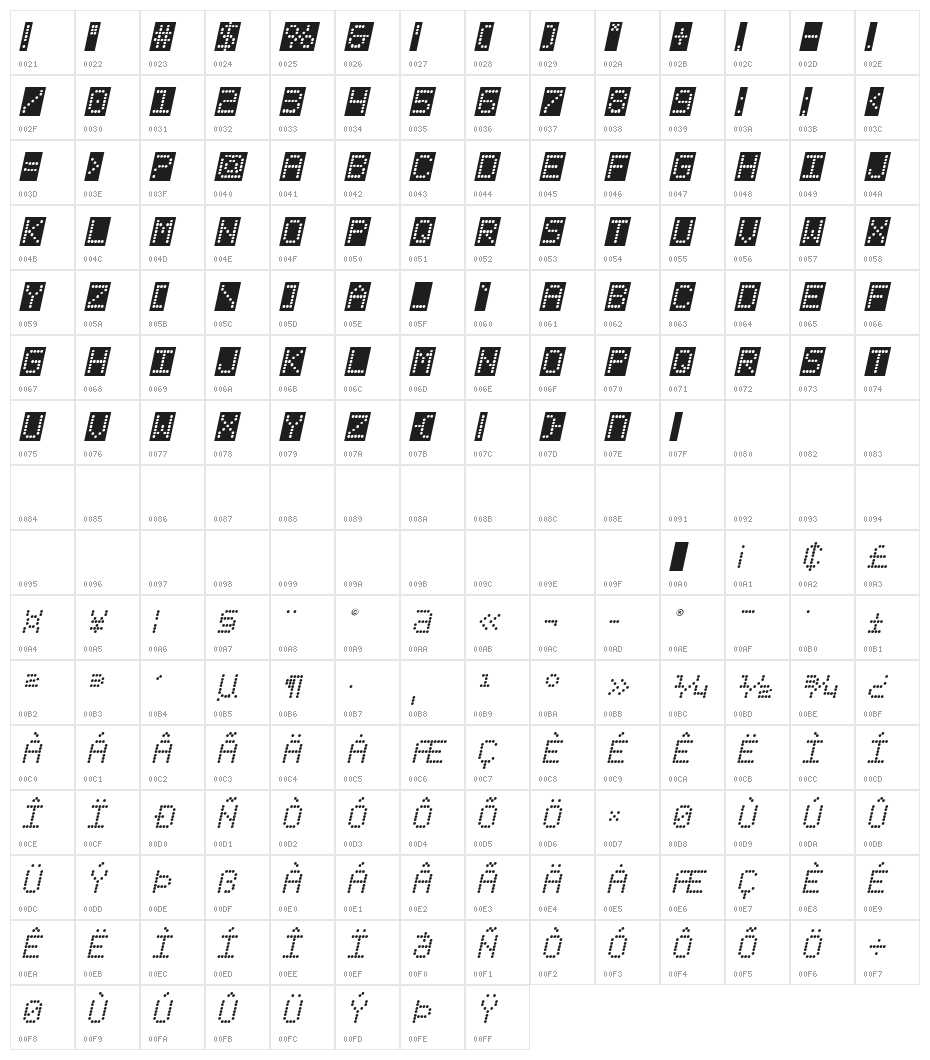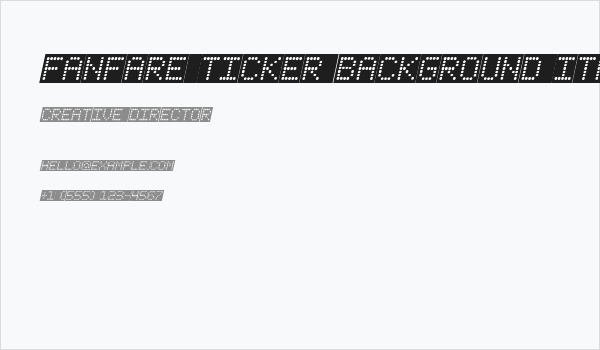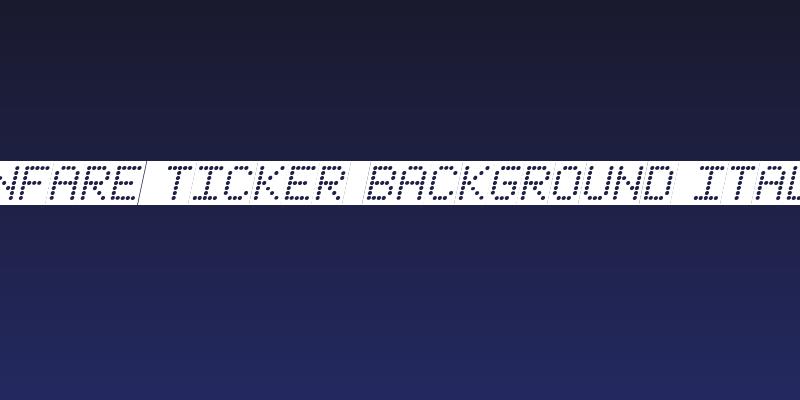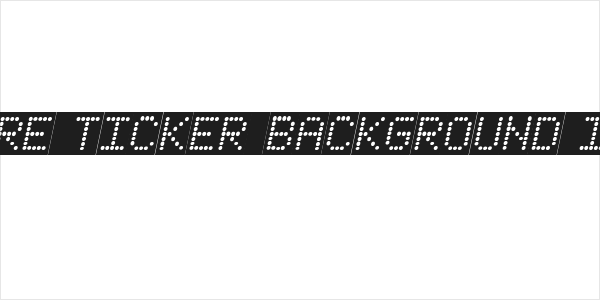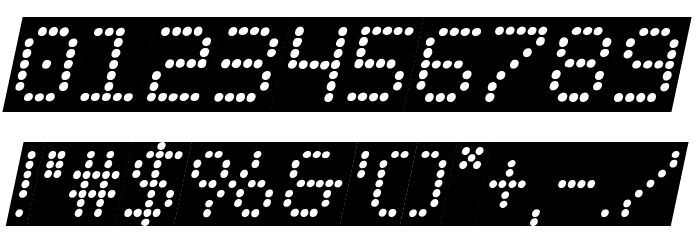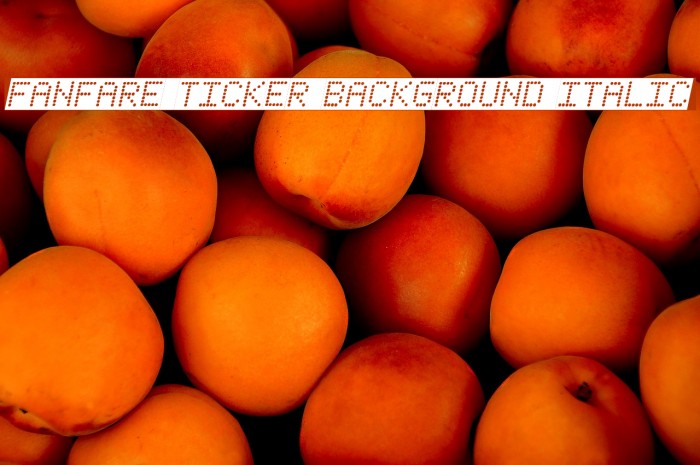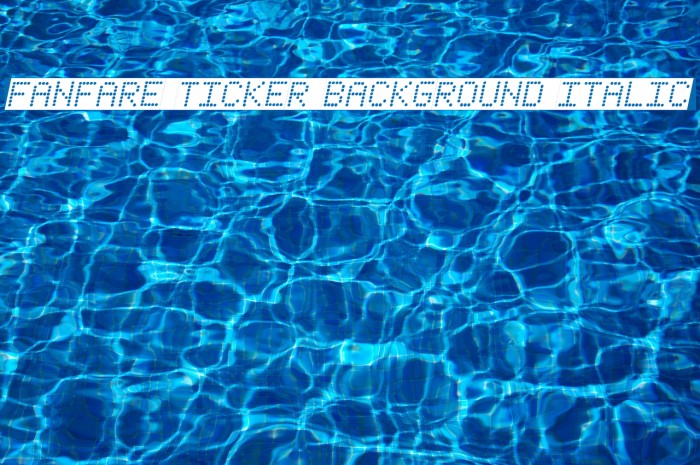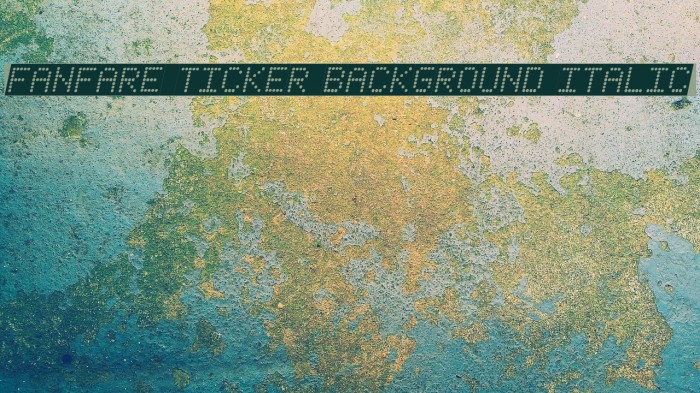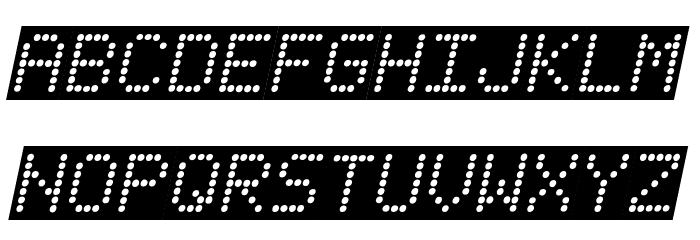
Fanfare Ticker Background Italic Font
Fanfare Ticker Background Italic Description
This font features a unique dot matrix style, reminiscent of digital displays and ticker tapes. Each character is composed of a series of evenly spaced dots, creating a pixelated effect that is both modern and retro. The italic slant adds a dynamic and forward-moving feel, enhancing its digital aesthetic. The uppercase and lowercase letters maintain consistent spacing and alignment, ensuring readability. Numbers and special characters follow the same dot pattern, providing a cohesive look across all glyphs. This font is ideal for projects that require a digital or technological theme, offering a distinctive and eye-catching appearance.
| Use Case | Headlines, Logos, Digital displays |
| Proposed Projects | Ideal for digital displays, retro-themed designs, technology branding, and futuristic posters. |